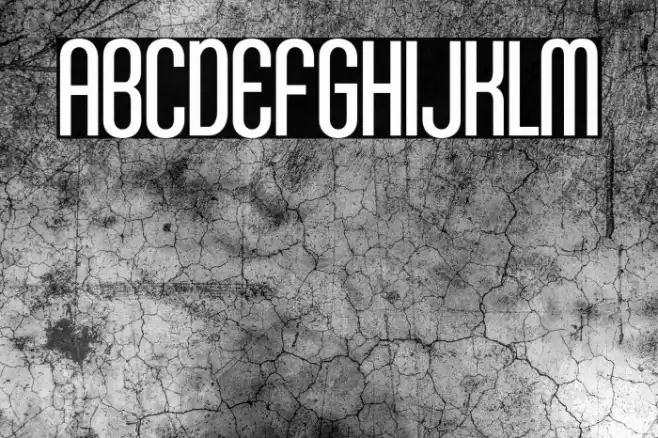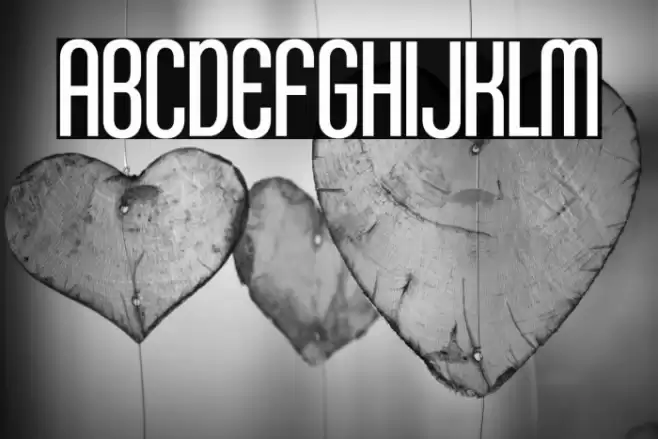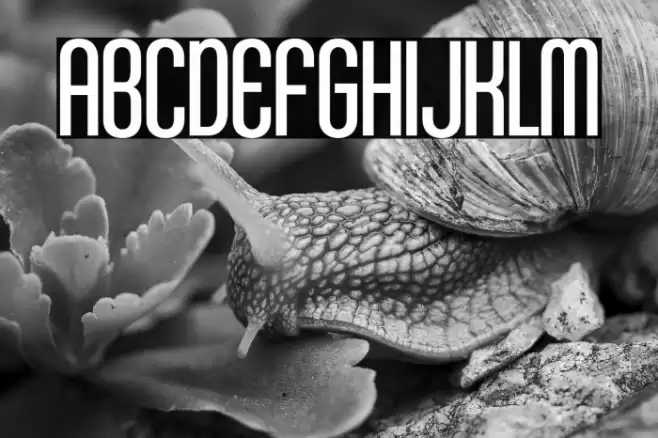
KleptocracyTitlingCdLt-Regular Font
KleptocracyTitlingCdLt-Regular Description
This font features a tall, condensed style with clean, geometric lines and a modern aesthetic. The uppercase letters are uniform in height, creating a cohesive and structured appearance. The lowercase letters maintain the same width, enhancing the uniformity and readability. Numbers are designed with the same condensed style, ensuring consistency across all characters. Special characters are distinct yet harmonious with the overall design, making this font versatile for various applications. The stroke thickness is consistent, providing a balanced look without high contrast.
A tall, condensed font with geometric lines and a modern aesthetic from Uncategorized fonts.
- Proposed Projects: Ideal for branding, posters, headlines, and modern design projects where a clean and structured look is desired.